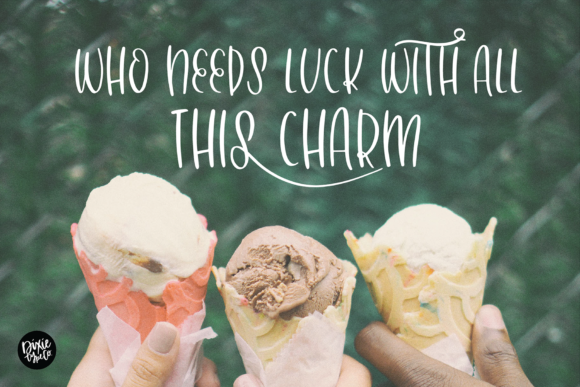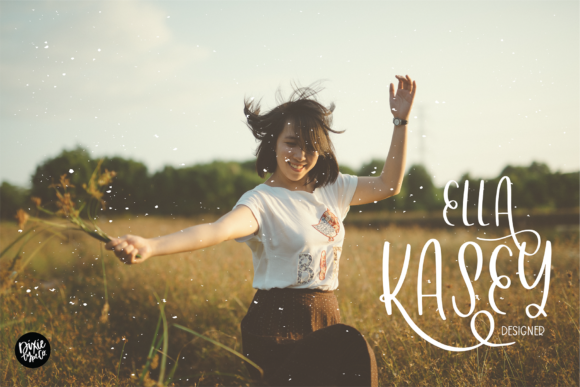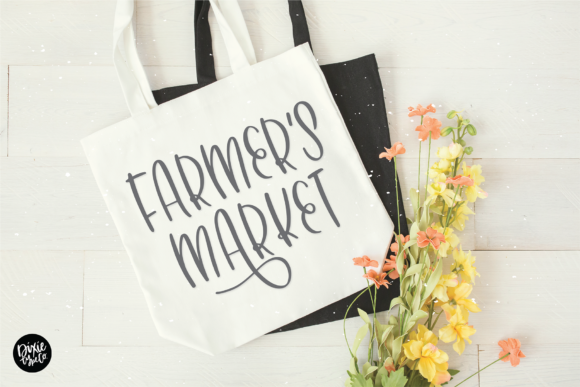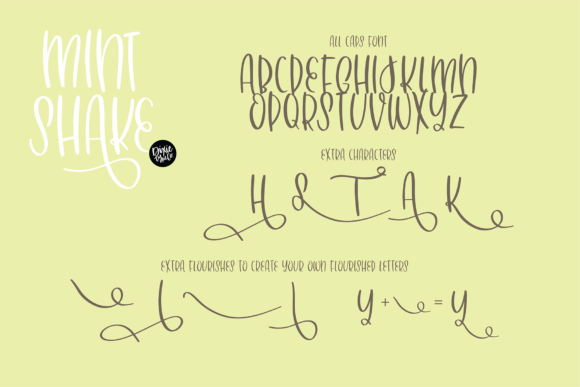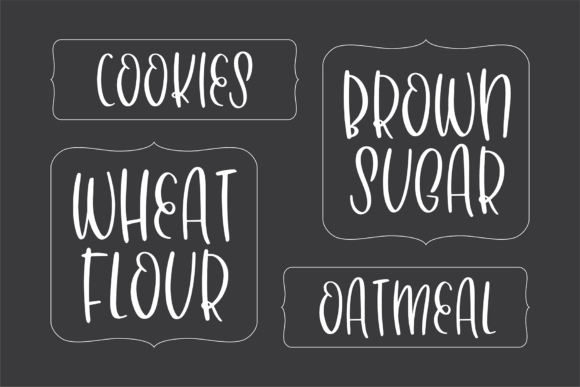
Mint Shake Font
About Mint Shake Font
Mint Shake is a cute, friendly and cool handwritten font. Whatever the topic, this font will be a wonderful asset to your font library, as it has the potential to enhance any creation.